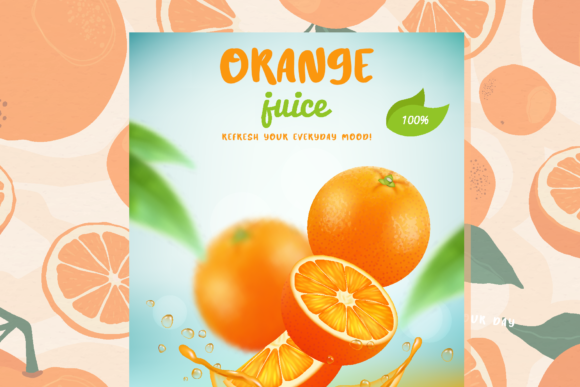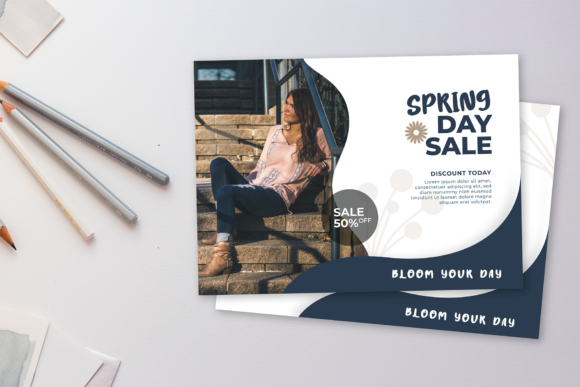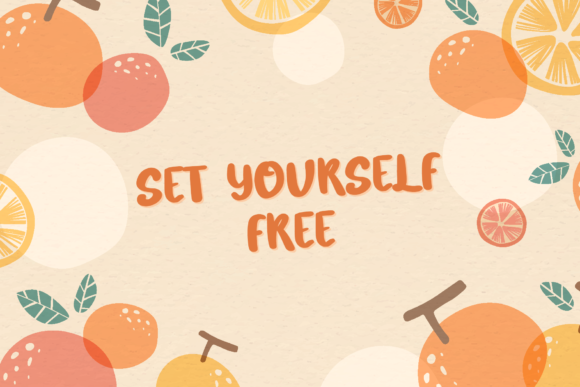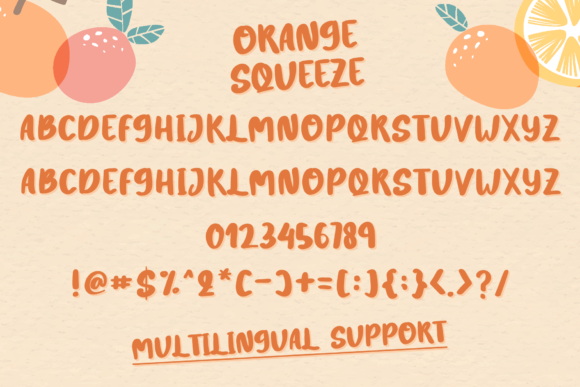
Introduction to Orange Squeeze Font
Orange Squeeze is a sweet and friendly handwritten font.
Key Features of Orange Squeeze Font
Why Choose Orange Squeeze Font?
Orange Squeeze Font offers exceptional quality and versatility, making it a valuable addition to your design toolkit. Whether you’re creating for personal projects or commercial use, Orange Squeeze Font delivers professional results.